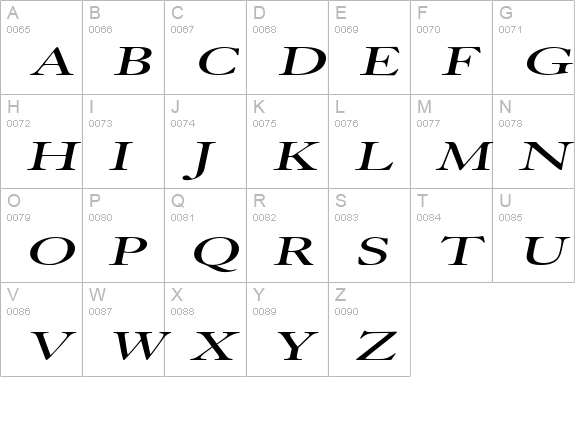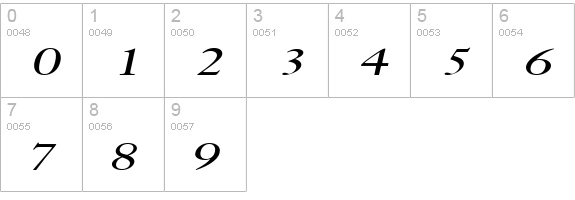
Bliss Extended Italic is a distinctive, extended-width, italic variant in the Bliss typeface family \xE2\x80\x94 well suited to design and typography projects.
Bliss Extended Italic font is a stunning and elegant typeface that exudes sophistication and style. Its slanted, italic design adds a touch of flair and modernity to any project. This font is perfect for creating impactful headlines, stylish logos, and eye-catching designs. What makes Bliss Extended Italic font even more appealing is that it is available for free download at FontsMarket.com. Now you can add this beautiful font to your collection without any cost, making it a valuable asset for any designer or creative professional. Embrace the beauty and versatility of Bliss Extended Italic font in your next project and watch it come to life with elegance and charm.